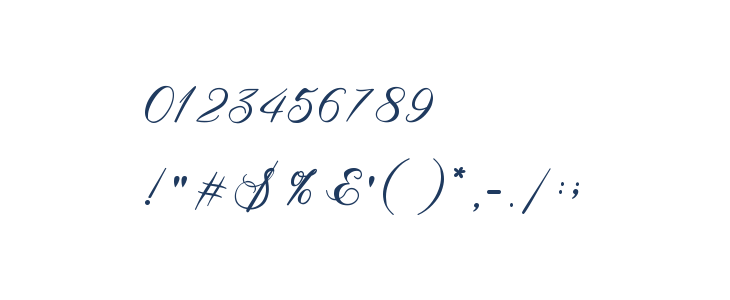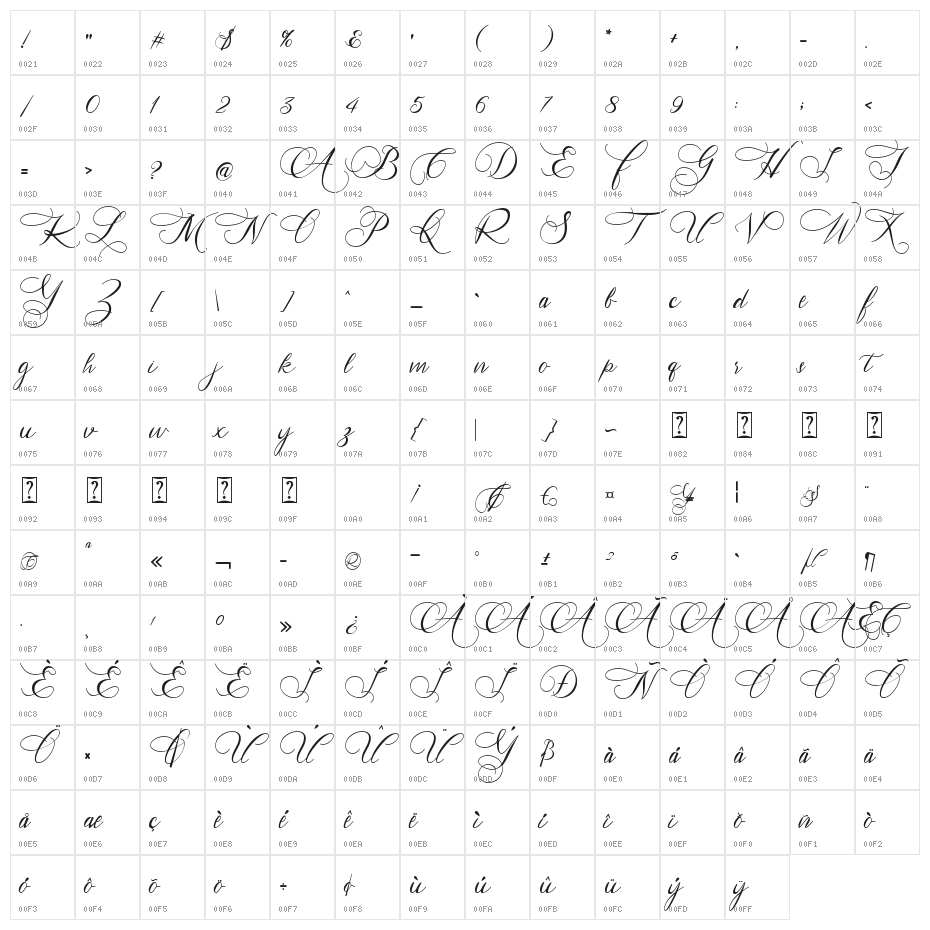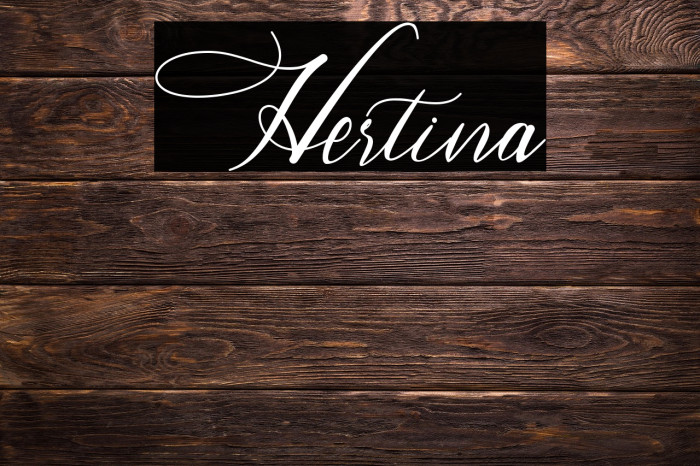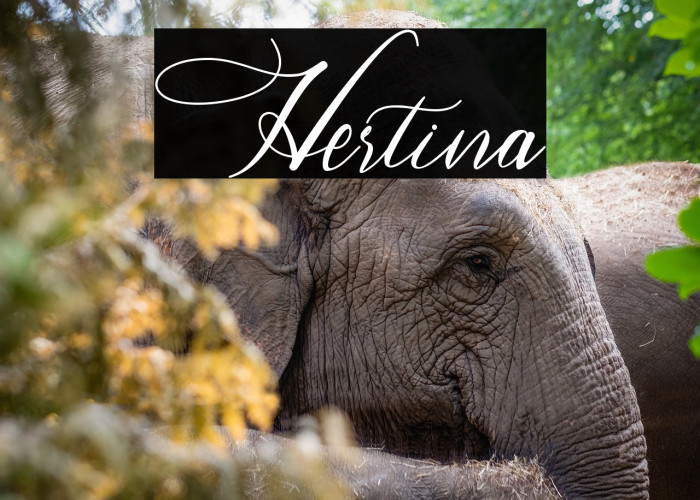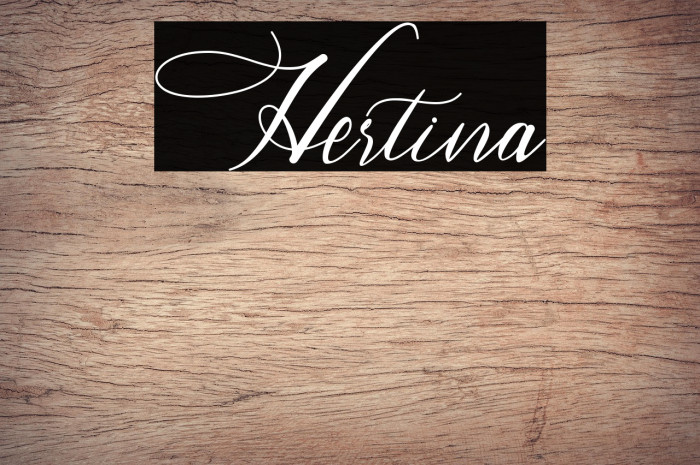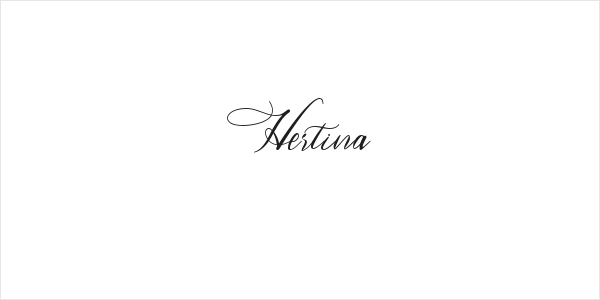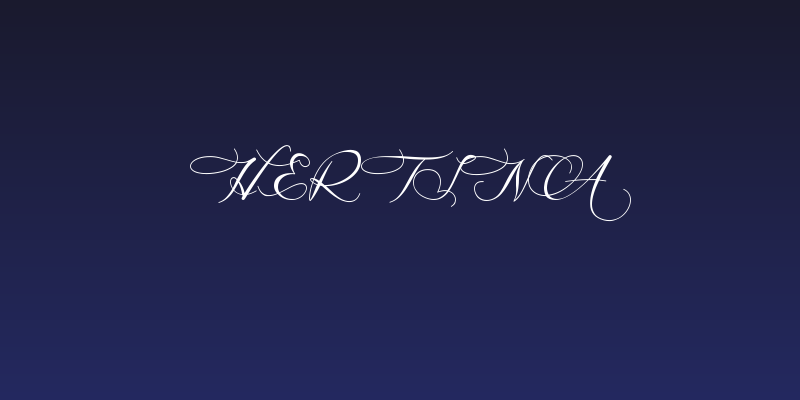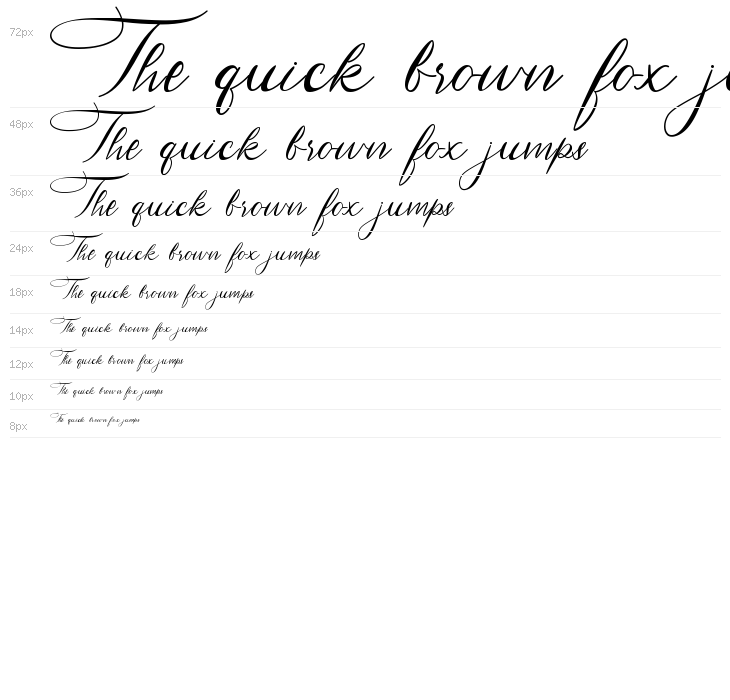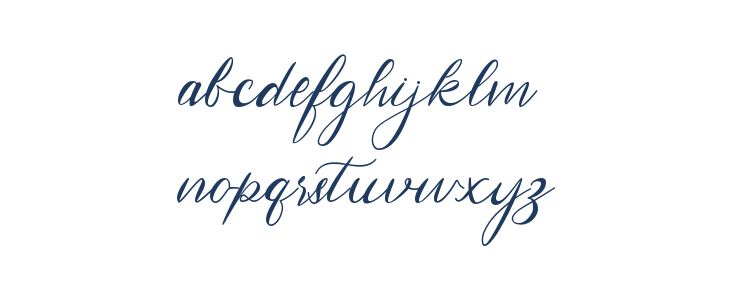
Hertina Font
Hertina Description
This elegant script font features intricate and flowing letterforms, characterized by its ornate and decorative style. The uppercase letters are particularly elaborate, with extensive flourishes and loops that give a sense of sophistication and grandeur. The lowercase letters maintain a graceful and fluid appearance, complementing the uppercase with their smooth curves and delicate strokes. Numbers and special characters are designed to match the overall aesthetic, ensuring a cohesive look across all text. This font is ideal for projects that require a touch of elegance and refinement.
| Use Case | Logos, Invitations, Decorative headlines |
| Proposed Projects | Ideal for wedding invitations, luxury branding, elegant stationery, and decorative headlines. |